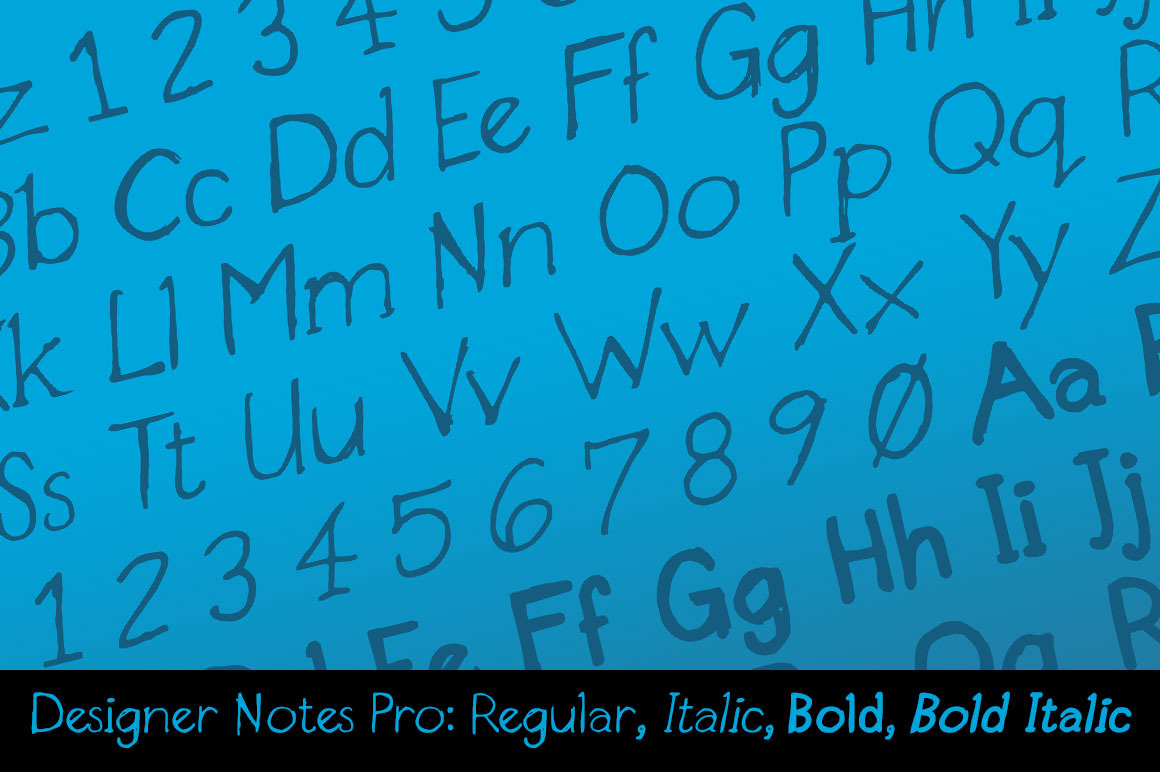
Designer Notes Pro Font Family
Want that “take a note” look? Now you can typeset handwritten look using Designer Notes Pro. The font matches the look of handwritten notes in diary, post it note or sketchbook. The letter shapes are based on letter created using a Pilot Precise V5RTpen. There’s something special about how it puts ink on paper. This font falls in the script/handwriting font style. Designer Notes Pro Includes 4 versions, regular, italic, bold and bold italic.